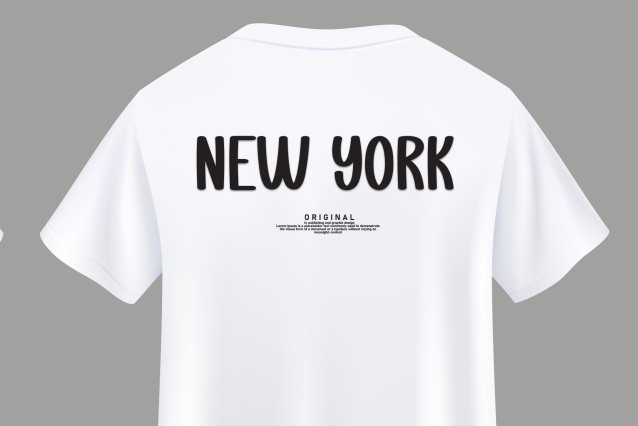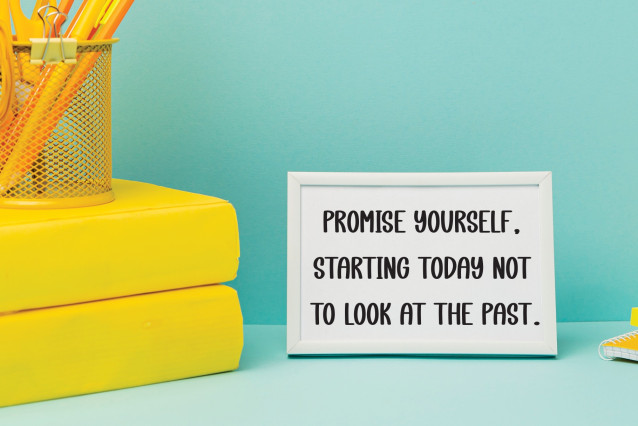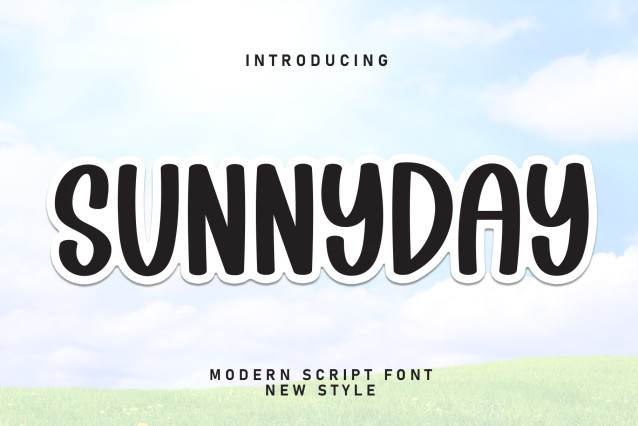
Sunnyday Font
Sunnyday Font – special creative products for you, our products will give you an extraordinary experience. The latest style letters are perfect for wall displays, wedding invitations, social media post logos, advertisements, product packaging, product designs, labels, photography, watermarks, invitations, stationery, and any project that requires taste handwriting.